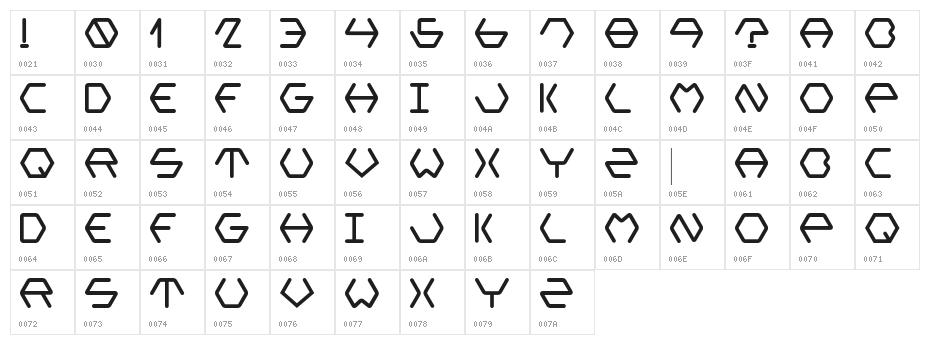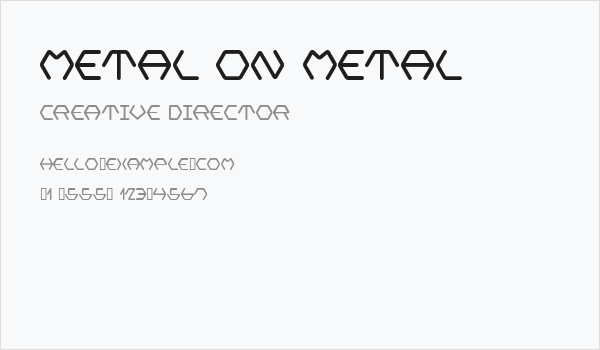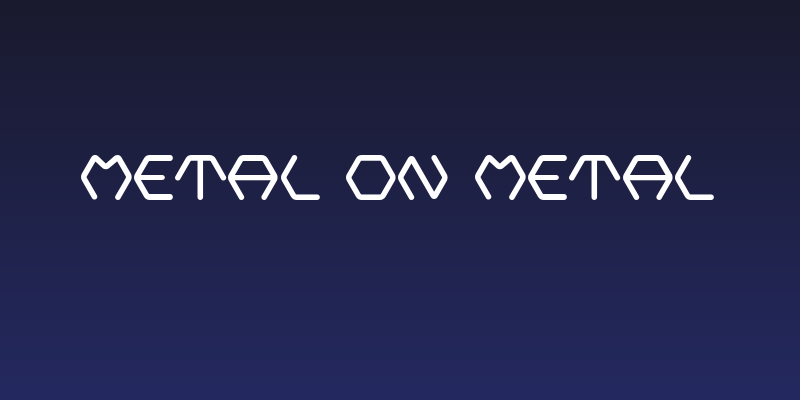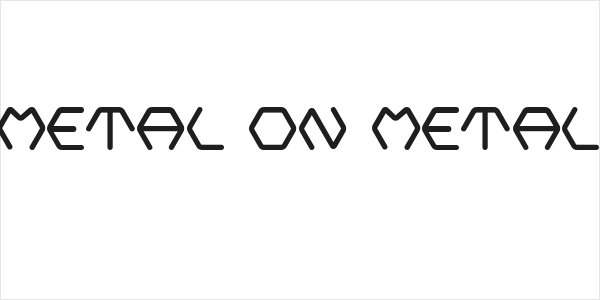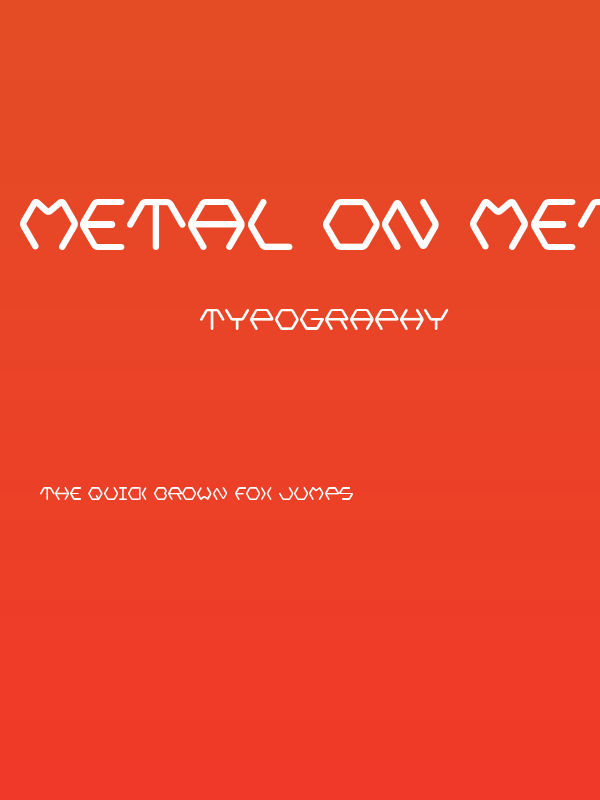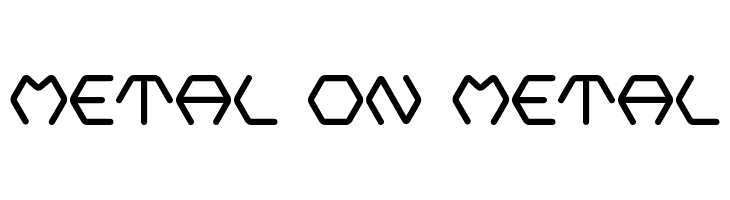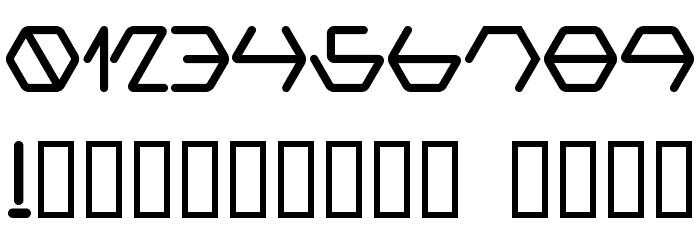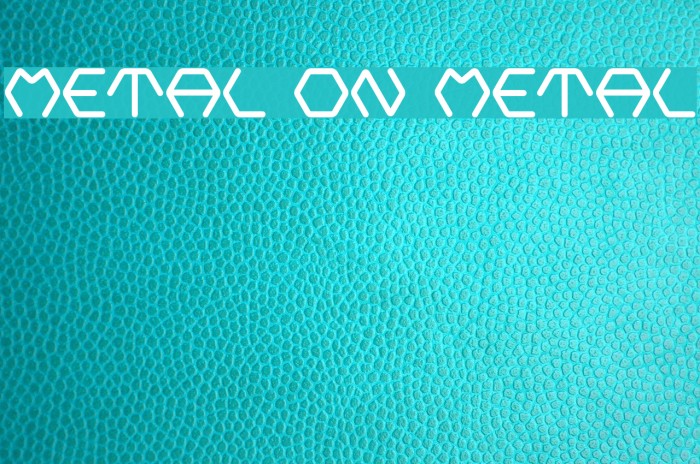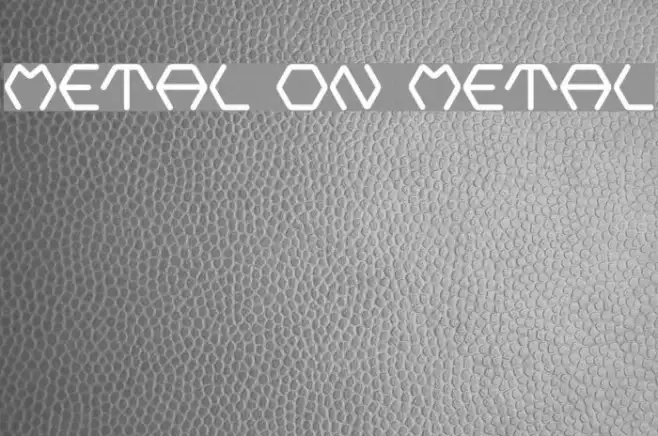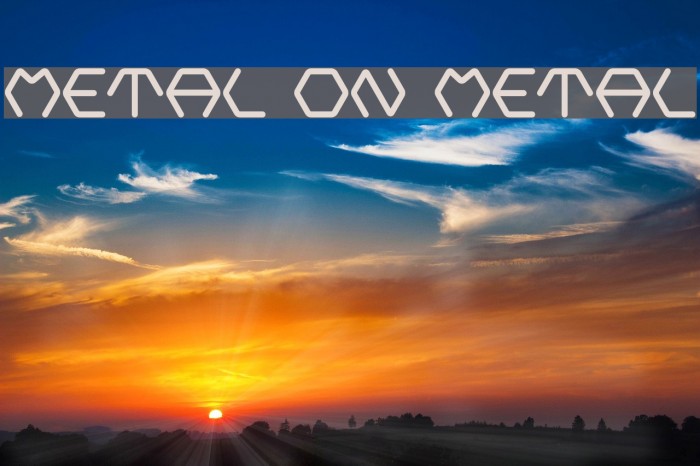
Metal On Metal Font
Metal On Metal Description
This font features a bold, geometric design with a futuristic and industrial aesthetic. Each character is constructed with thick, uniform lines that form angular shapes, reminiscent of metal structures or machinery. The uppercase and lowercase letters maintain a consistent style, with sharp edges and a mechanical feel. Numbers and special characters follow the same design principles, ensuring a cohesive look across all elements. The font's unique style makes it stand out, ideal for projects that require a modern, tech-inspired appearance.
| Overall Style | Modern, Futuristic |
| Proposed Projects | Ideal for tech branding, futuristic posters, video game graphics, and industrial-themed designs. |